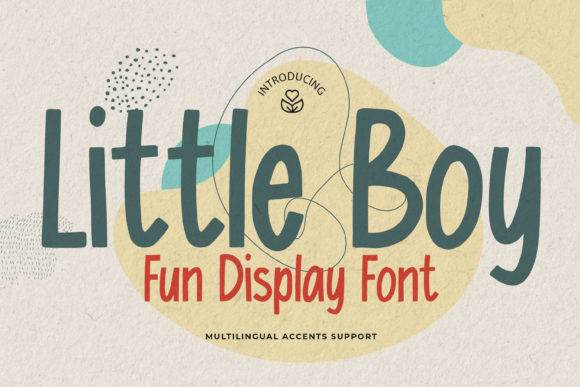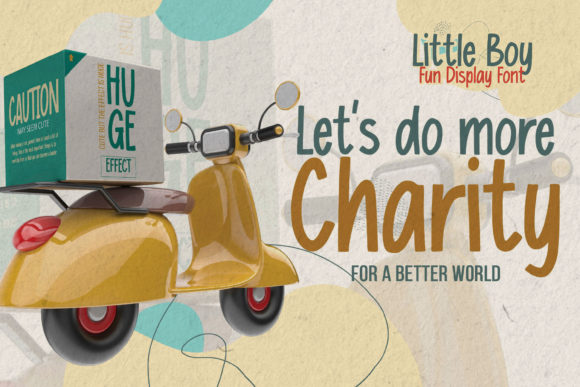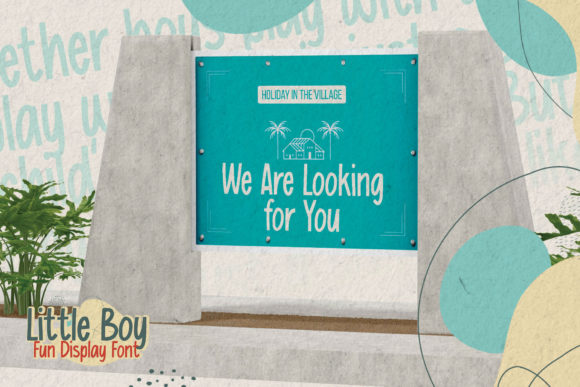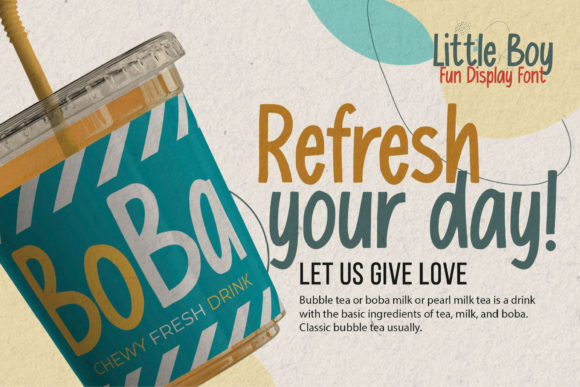
Little Boy Font: A Cute & Crafty Display Font for Playful Designs!
About the Little Boy Font
Meet Little Boy Font, a stunning font that brings a touch of elegance and professionalism to any design. Little Boy is a fun display font with cute and crafty characters and a natural texture. This typeface is great for watermarks on photography, logos, branding, invitations, advertisements, product packaging, stationery, wedding designs, labels, product packaging, special events, or anything else.
Little boy has a natural, hand-drawn feel that makes it perfect for projects that need a natural touch and beautiful details.
This font was inspired by food logos combined with cute, crafty styles, and it will surely fulfill any of your designs needs. It suits sporty themes, logotypes, wordmarks, and any creative project you have coming up.
Little Boy Font Usage Examples
Little Boy Font Example